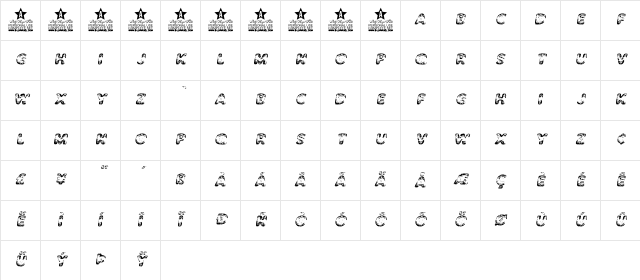
Complete EMERALD HILL PERSONAL USE Bold Italic glyph index. Displaying only characters natively supported by EMERALD HILL PERSONAL USE Bold Italic font.
EMERALD HILL PERSONAL USE is a composed and adaptable typeface that performs quietly and consistently across a wide range of design contexts. The slanted form adds forward momentum and visual energy. Its bold stroke weight gives it real presence on the page.